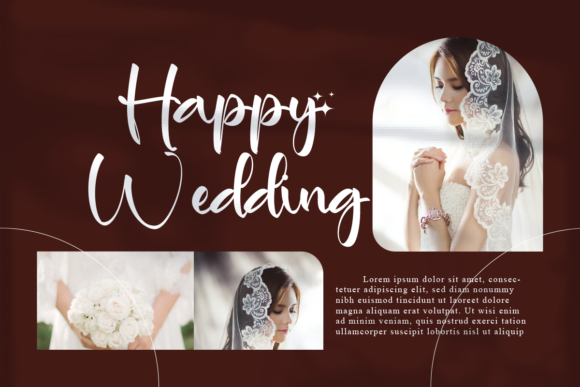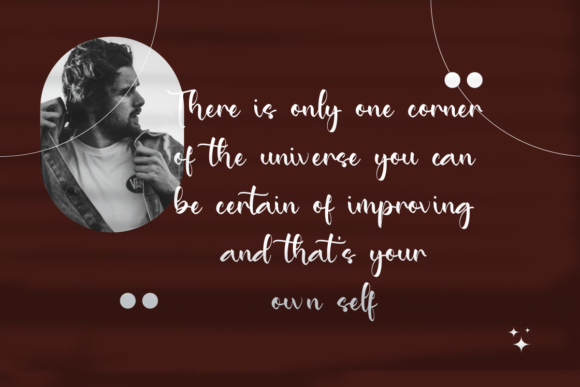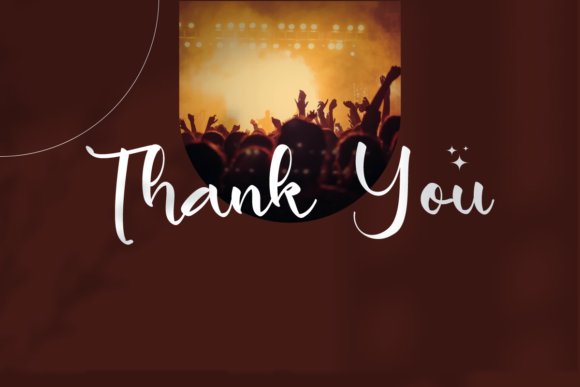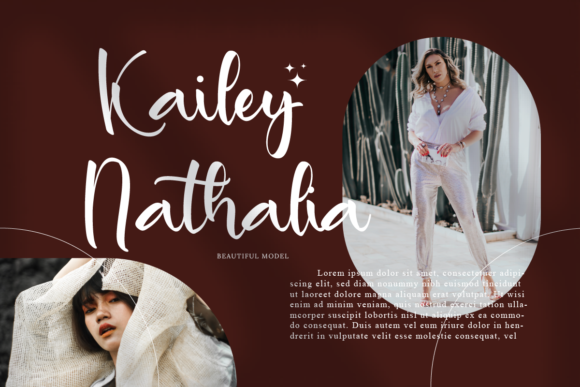
Saniya Christina Font
About Saniya Christina Font
Saniya Christina is a beautiful and light handwritten font with a unique feel and a stunning impact. It will add a luxury spark to any design project that you wish to create!